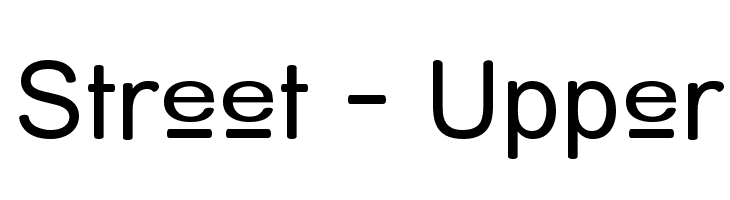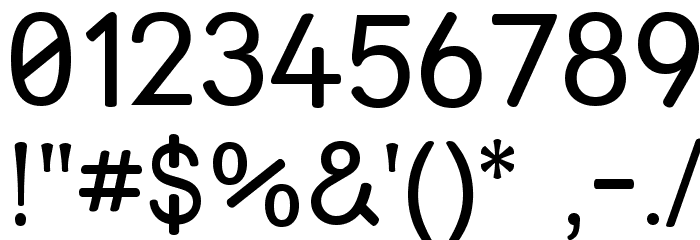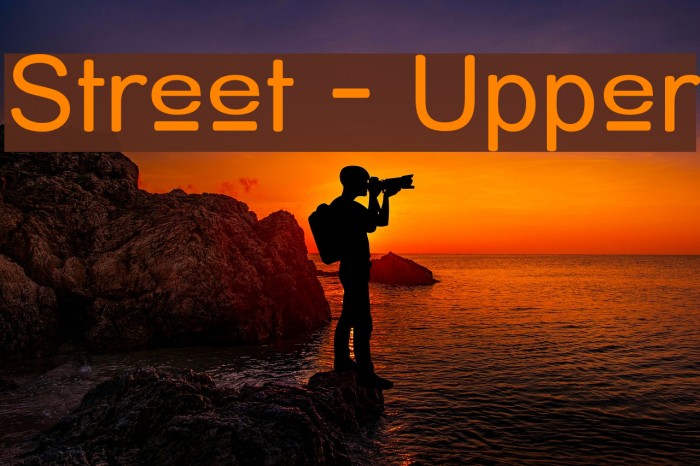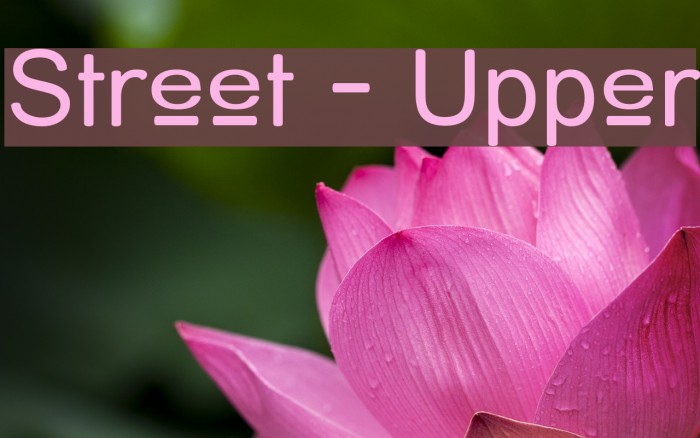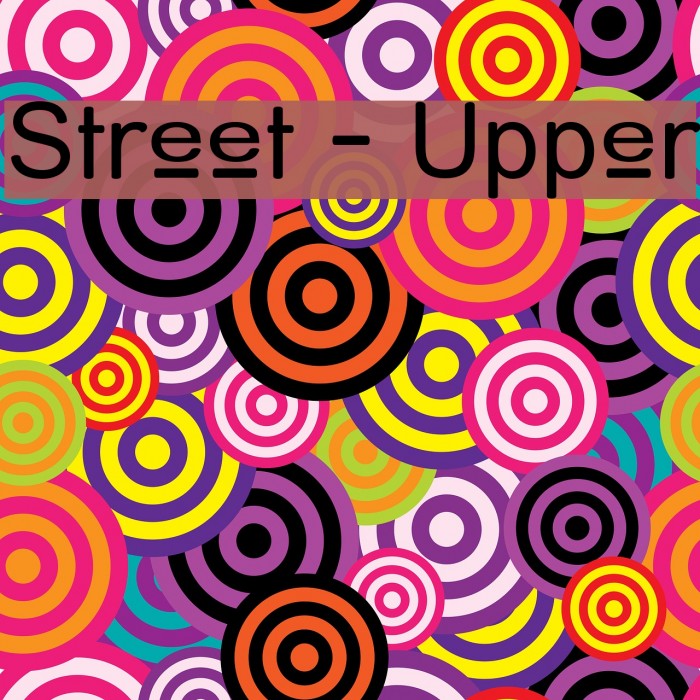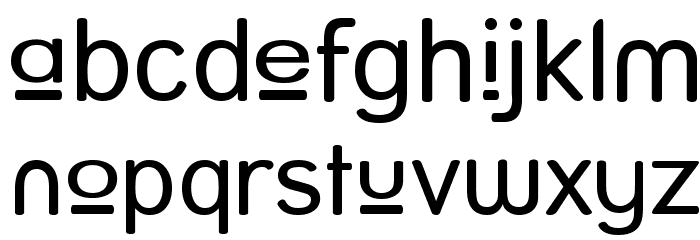
Street - Upper Font
Street - Upper Description
This font features a clean and modern sans-serif style with uniform stroke widths, giving it a sleek and contemporary appearance. The characters are well-proportioned, with rounded edges that add a friendly and approachable feel. The uppercase letters are bold and assertive, while the lowercase letters maintain a consistent and harmonious flow. The numerals are clear and easily distinguishable, making them suitable for various applications. Special characters are included, providing versatility for different design needs. Overall, this font is designed for readability and aesthetic appeal, making it ideal for digital and print media.
| Use Case | Headlines, Body text, Logos |
| Proposed Projects | Ideal for branding, web design, advertising, and editorial layouts. |